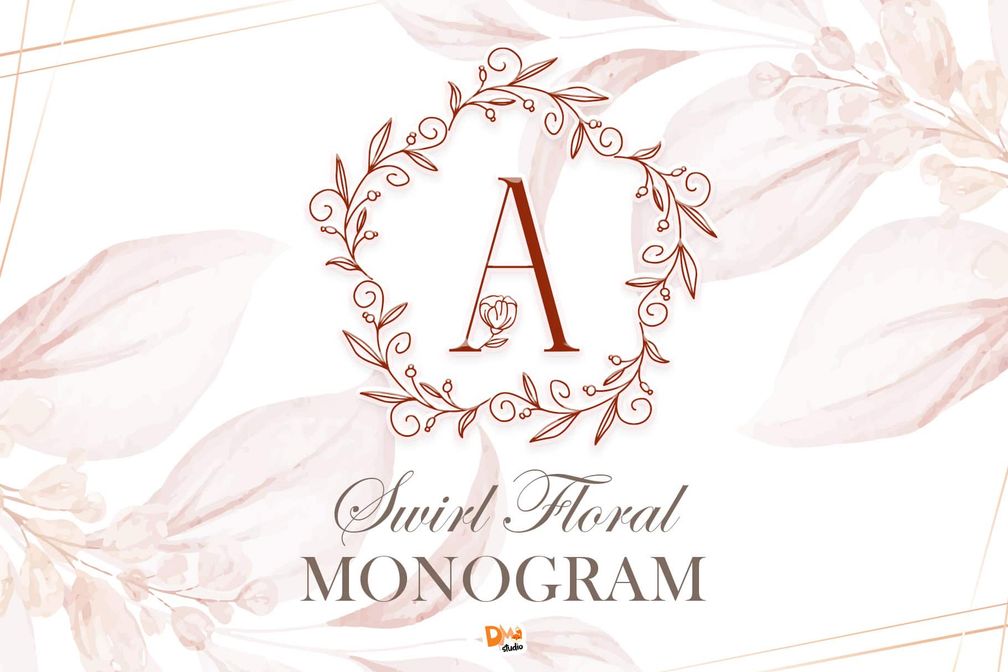
Swirl Floral Monogram
Swirl Floral Monogram – Elegant & Ornamental Monogram Font
Swirl Floral Monogram is a beautifully designed typeface featuring intricate floral and swirling elements. This decorative monogram font is perfect for wedding invitations, luxury branding, personalized stationery, boutique packaging, and artistic lettering projects. With its graceful swirls and floral-inspired details, this font adds a touch of sophistication and elegance to any design.
• Intricate Swirl & Floral Details: A delicate combination of ornamental curves and floral accents.
• Perfect for Luxury & Elegant Projects: Ideal for wedding stationery, logos, branding, and personalized gifts.
• Refined & Timeless Aesthetic: A harmonious blend of floral beauty and artistic swirls.